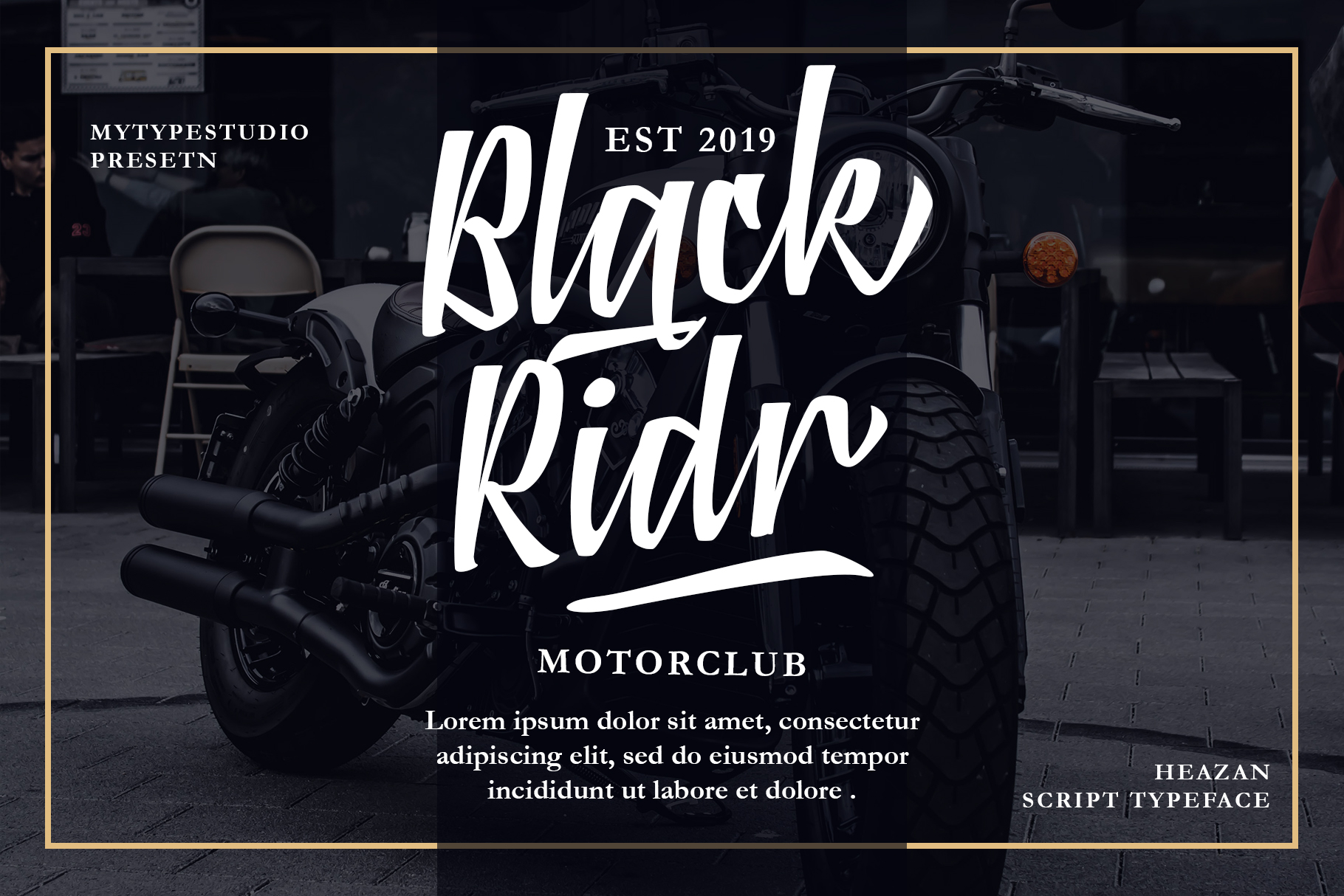
Heazan is a stylish handwring font. with natural movement make looks elegant, classy and beauty for your project.
Heazan is perfect for branding projects, logo, wedding designs, social media posts, advertisements, product packaging, product designs, label, photography, watermark, invitation, stationery and any projects that need handwriting taste.
This gorgeous font includes all lowercase and uppercase characters, numbers, punctuation, an array of standard ligatures and a selection of international characters as well.